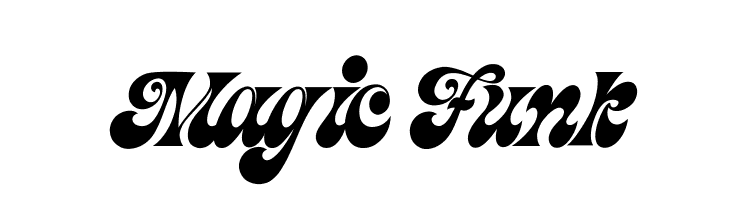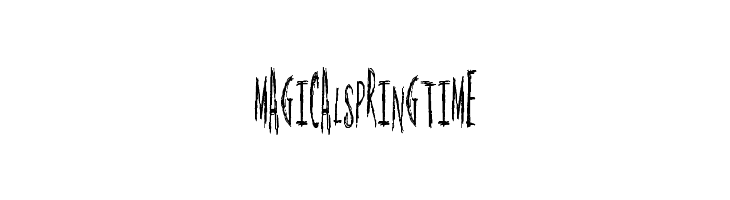
A bold, retro-inspired font with playful curves and swirls.
A playful, whimsical font with rounded and elongated characters, perfect for creative projects.
A bold, expressive brush script with a textured, hand-painted appearance.
An elegant serif font with elongated strokes and a refined, classic appearance.
A whimsical and ornate font with curly, decorative letterforms.
A fluid and elegant script font with medium contrast and dynamic letterforms.
A whimsical, hand-drawn font with irregular strokes and a playful style.
A whimsical, flowing script font with elegant, playful curves.
A bold, whimsical script font perfect for festive and playful designs.
A whimsical, hand-drawn font with jagged edges and a playful, magical style.